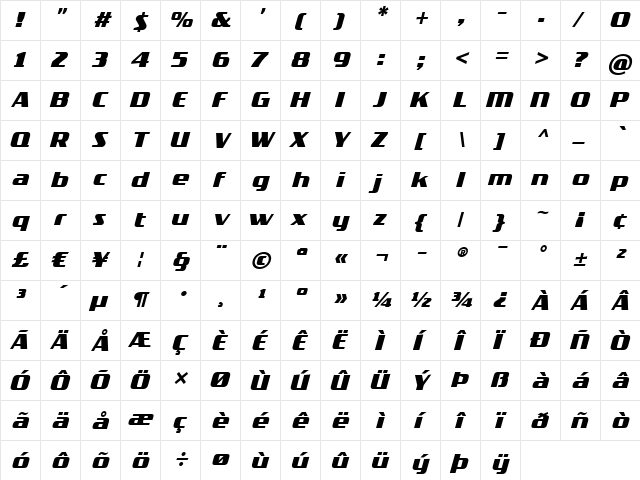
TradeMarker Bold Italic
Design Context for TradeMarker Typeface
TradeMarker is a composed and adaptable typeface that performs quietly and consistently across a wide range of design contexts. The dynamic lean of this cut emphasises speed and emphasis in any layout. The heavy weight commands attention and anchors typographic hierarchies.